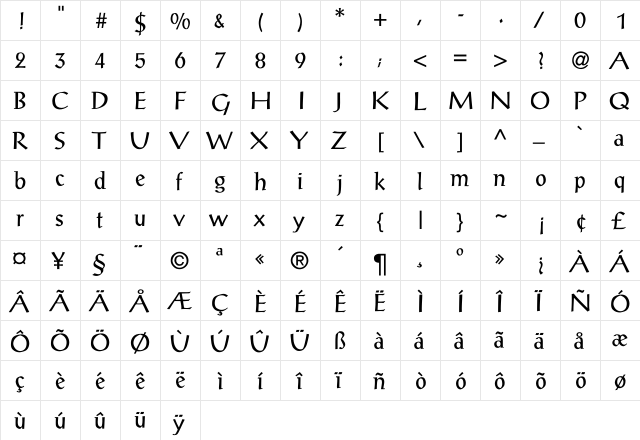
PostAntiqua-Roman Regular
Design Context for PostAntiqua-Roman Typeface
PostAntiqua-Roman is a composed and adaptable typeface that performs quietly and consistently across a wide range of design contexts.